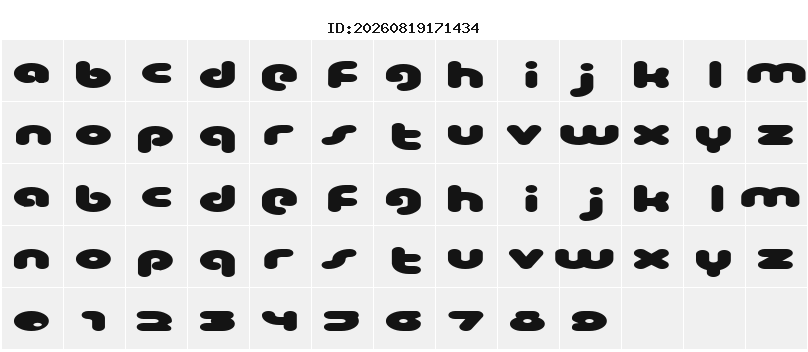
ShyFatBoy Preview
• Font Name: ShyFatBoy
• Font ID: Macromedia Fontographer 4.1.3 ShyFatBoy
• Full Font Name: ShyFatBoy
• Version: Macromedia Fontographer 4.1.3 5/10/03
• PostScript Name: ShyFatBoy
• Character Count: 101
About ShyFatBoy.ttf
ShyFatBoy.ttf is a modern, elegant sans-serif font designed for ultimate readability and visual harmony. Perfect for branding, headlines, web design, and print materials.